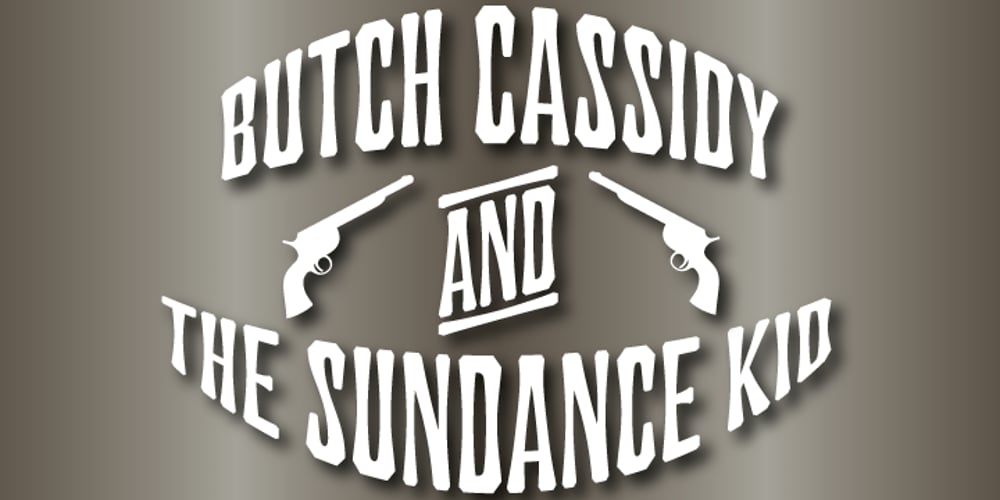
Slinger
Slinger font
Slinger Font Family was designed by Patrick Griffin, Kevin Allan King and published by Canada Type. Slinger contains 4 styles and family package options. Slinger is a tribute to eighteenth century and nineteenth century wood type, inspired by the following passage from a Dime Western: Rosalinda gave a low scream of horror as she saw the Rio Kid and her cousin knee rein their mounts out of the line and rake their flanks with rowels, galloping off up the grade in a cloud of alkali dust until a bend of the road hid them from the sheriff’s posse. The masked gunman came to a standing position on the eroded ledge of rock, his serape fluttering about him. “You weel ride back to Santa Barbara weethout stopping once or looking back, Senor Shereeff!” he commanded. “The firs’ hombre who pools a gon weel die, sabe usted? Now, andale!”